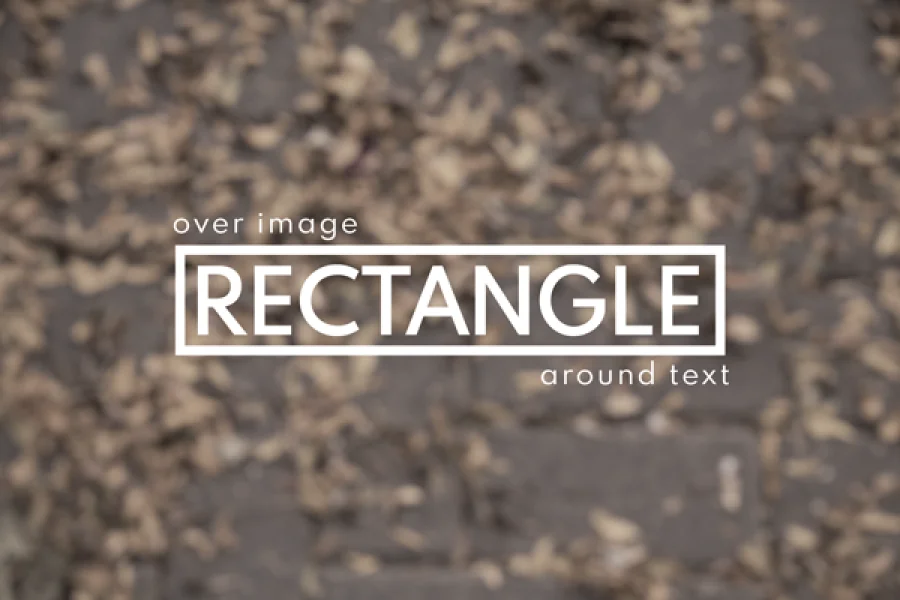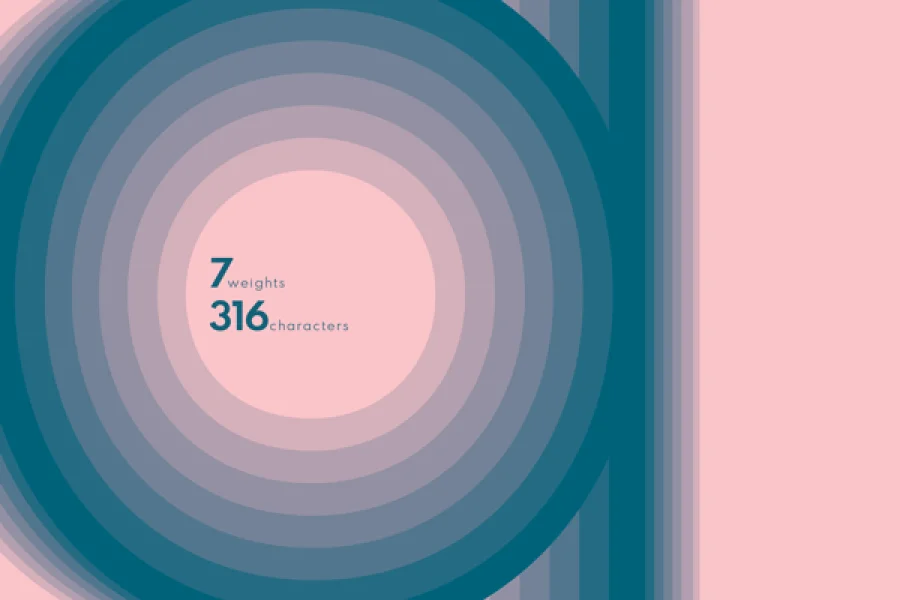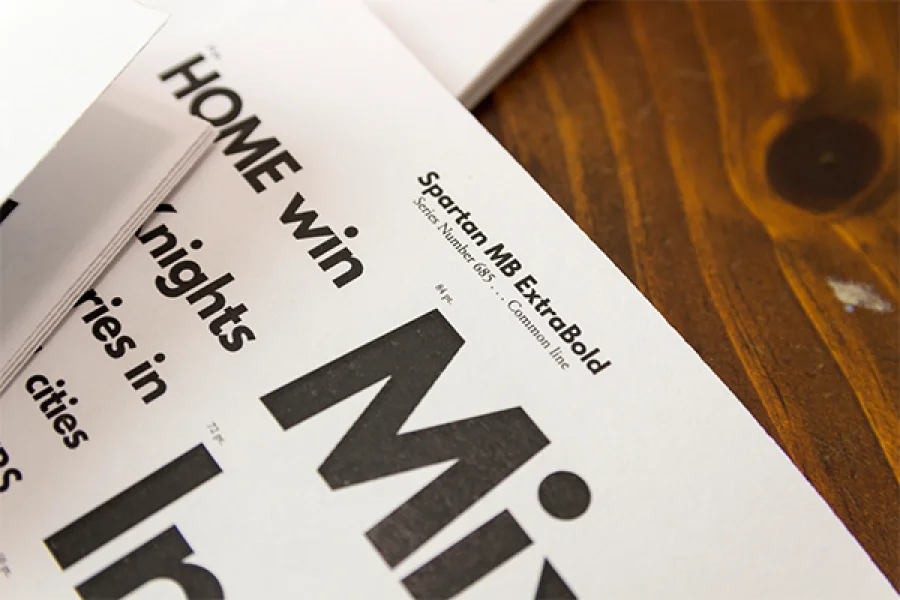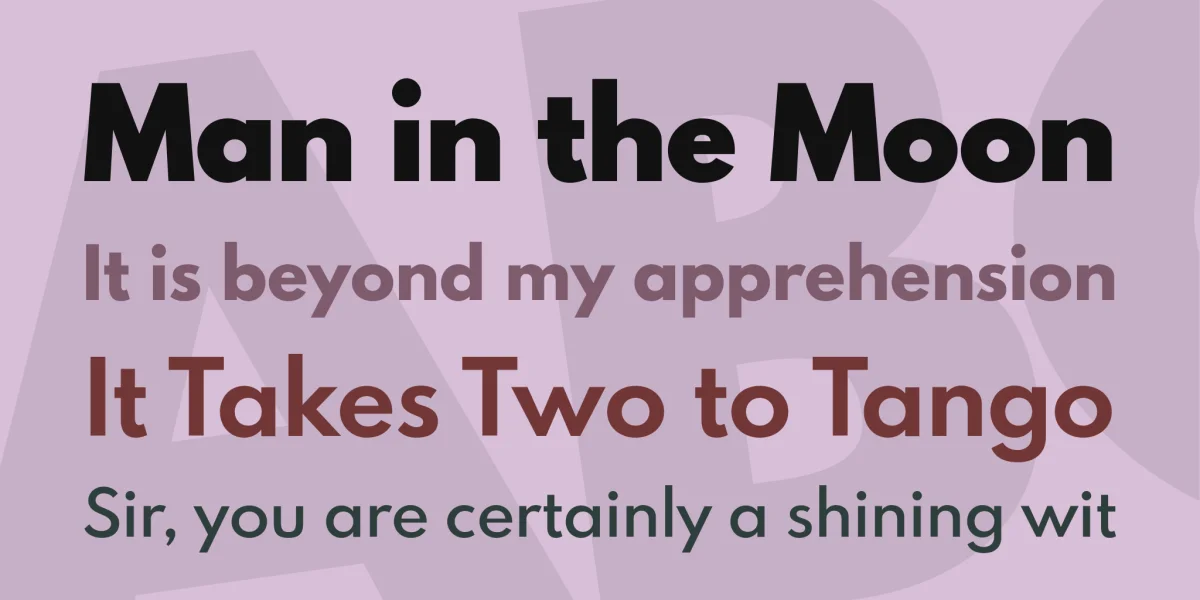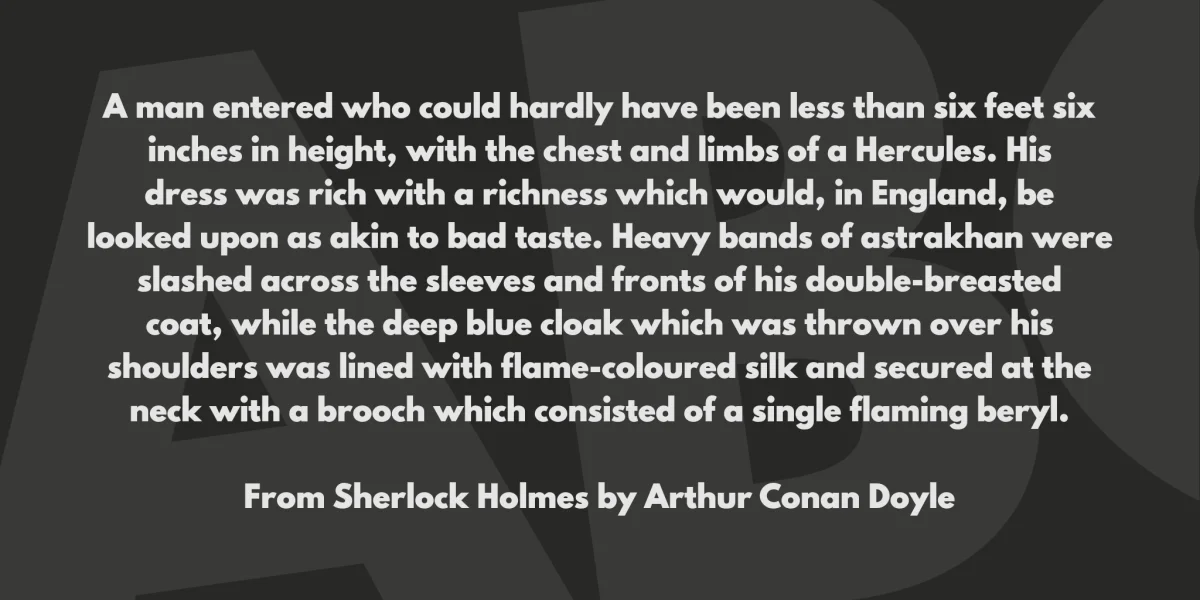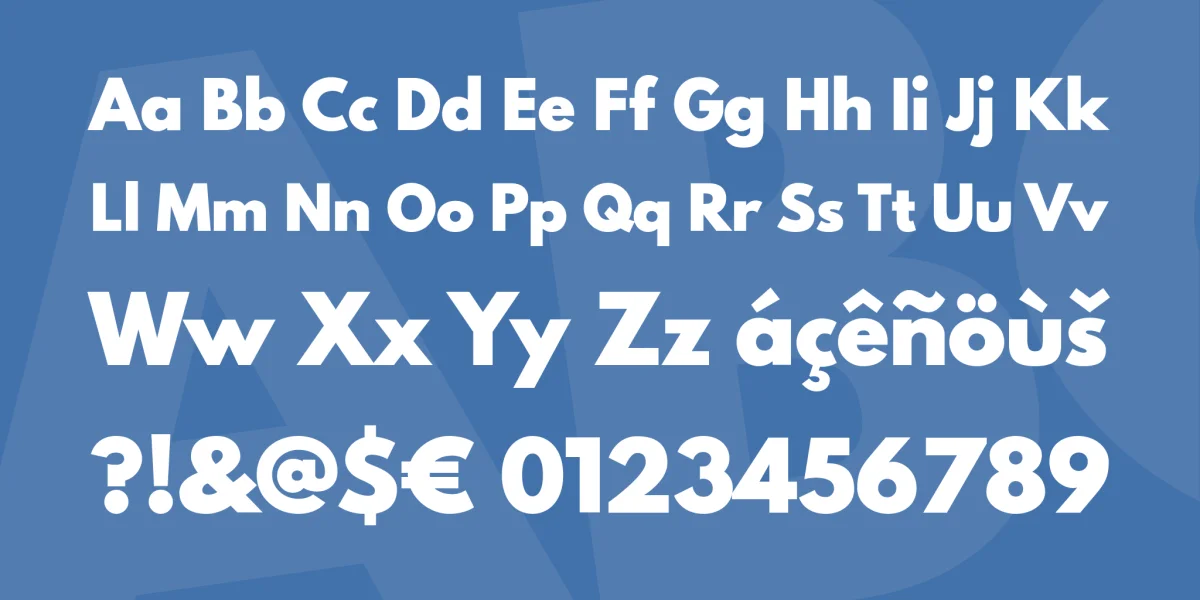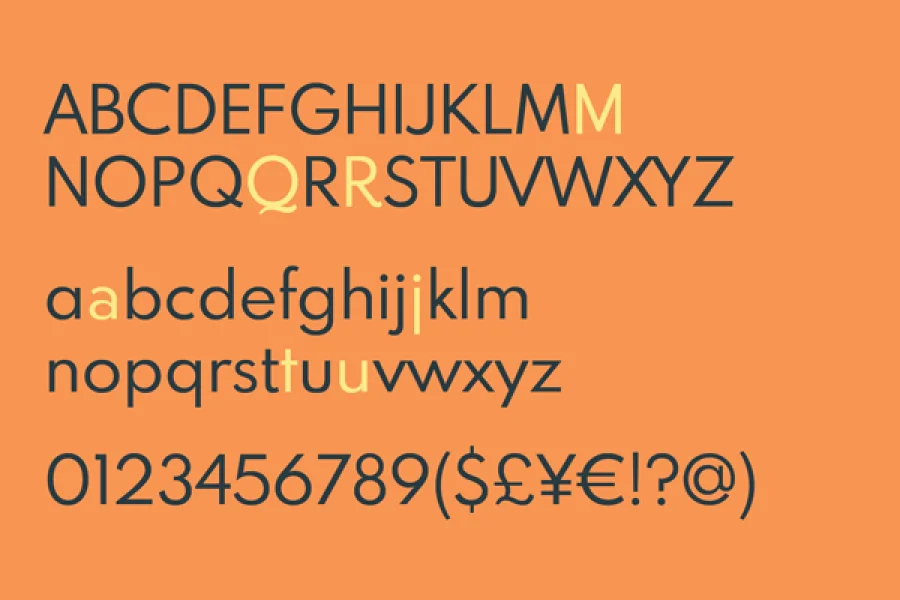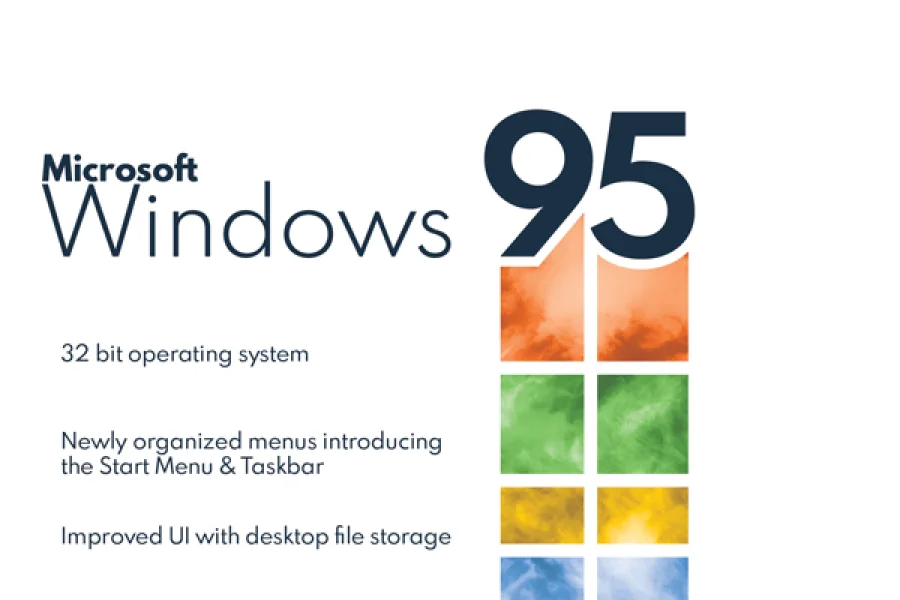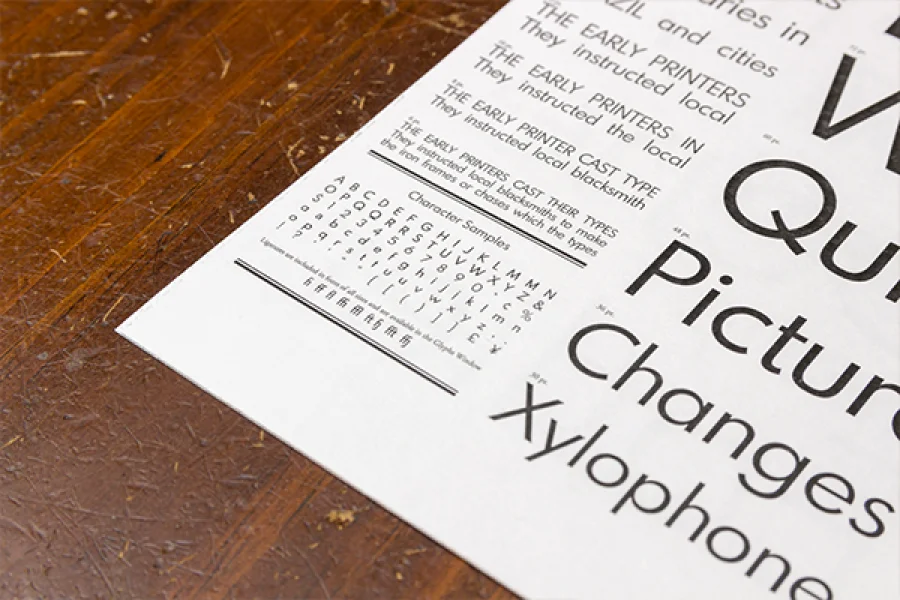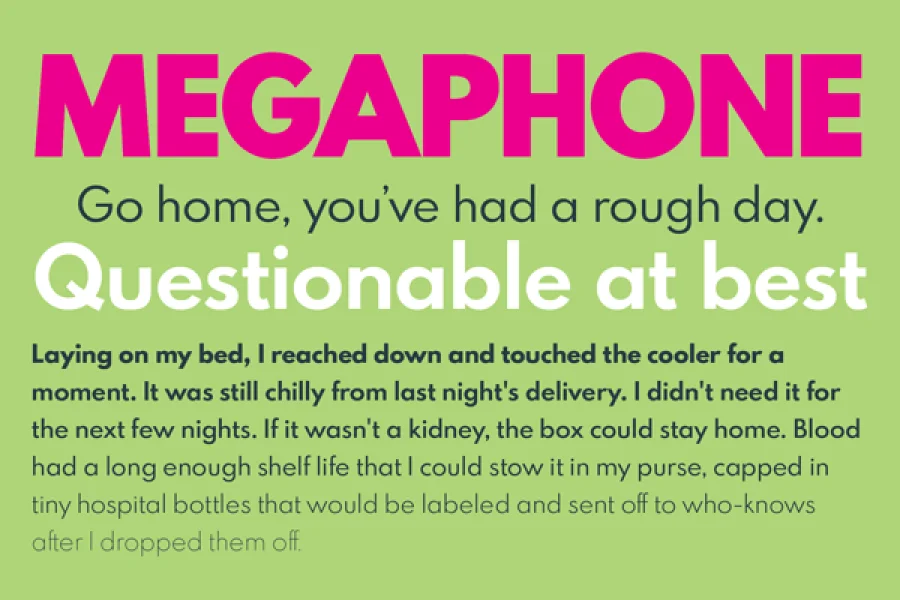
League Spartan, the typeface I had been using for my personal brand, only contains one weight. Given the fact that it is an open source font, I used this font as an opportunity to learn font development. The result is a free 7 weight family based on a single, bold weight.